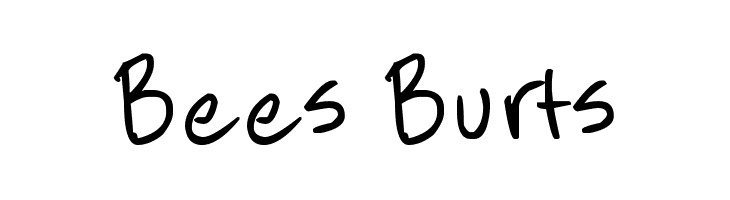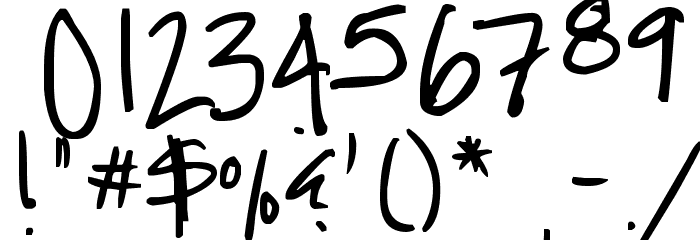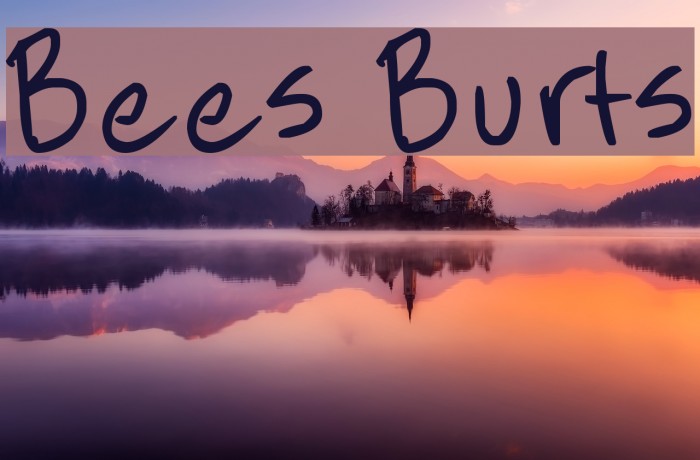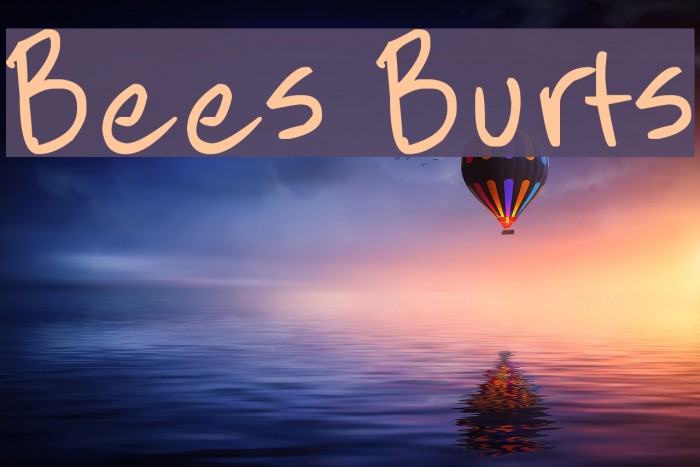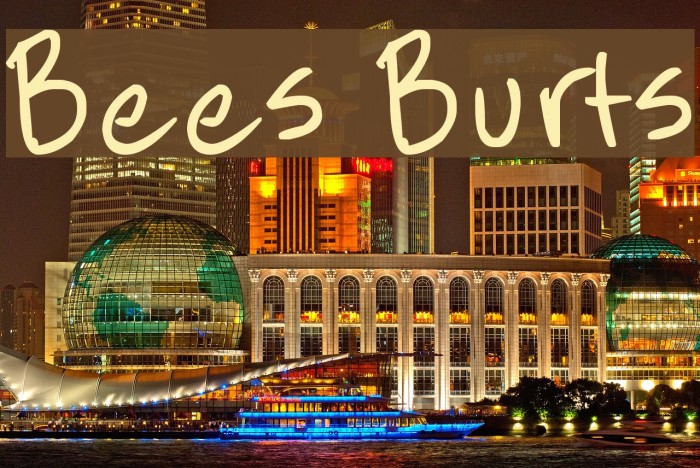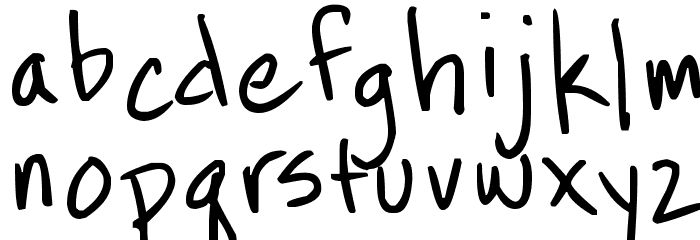
Bees Burts Font
Bees Burts Description
This font exudes a playful and casual handwritten style, characterized by its uneven strokes and informal appearance. The letters are slightly slanted, giving it a dynamic and lively feel. The uppercase and lowercase letters maintain a consistent style, with rounded edges and a natural flow that mimics authentic handwriting. Numbers and special characters follow the same informal aesthetic, making the font versatile for various creative projects. Its organic and approachable look makes it suitable for designs that aim to convey friendliness and warmth.
A playful, casual handwritten font with uneven strokes and a lively feel from Uncategorized fonts.
- Proposed Projects: Ideal for greeting cards, children's books, casual branding, and social media graphics.
- Overall Style: Casual
- Use Case: Headlines, Informal text, Creative projects